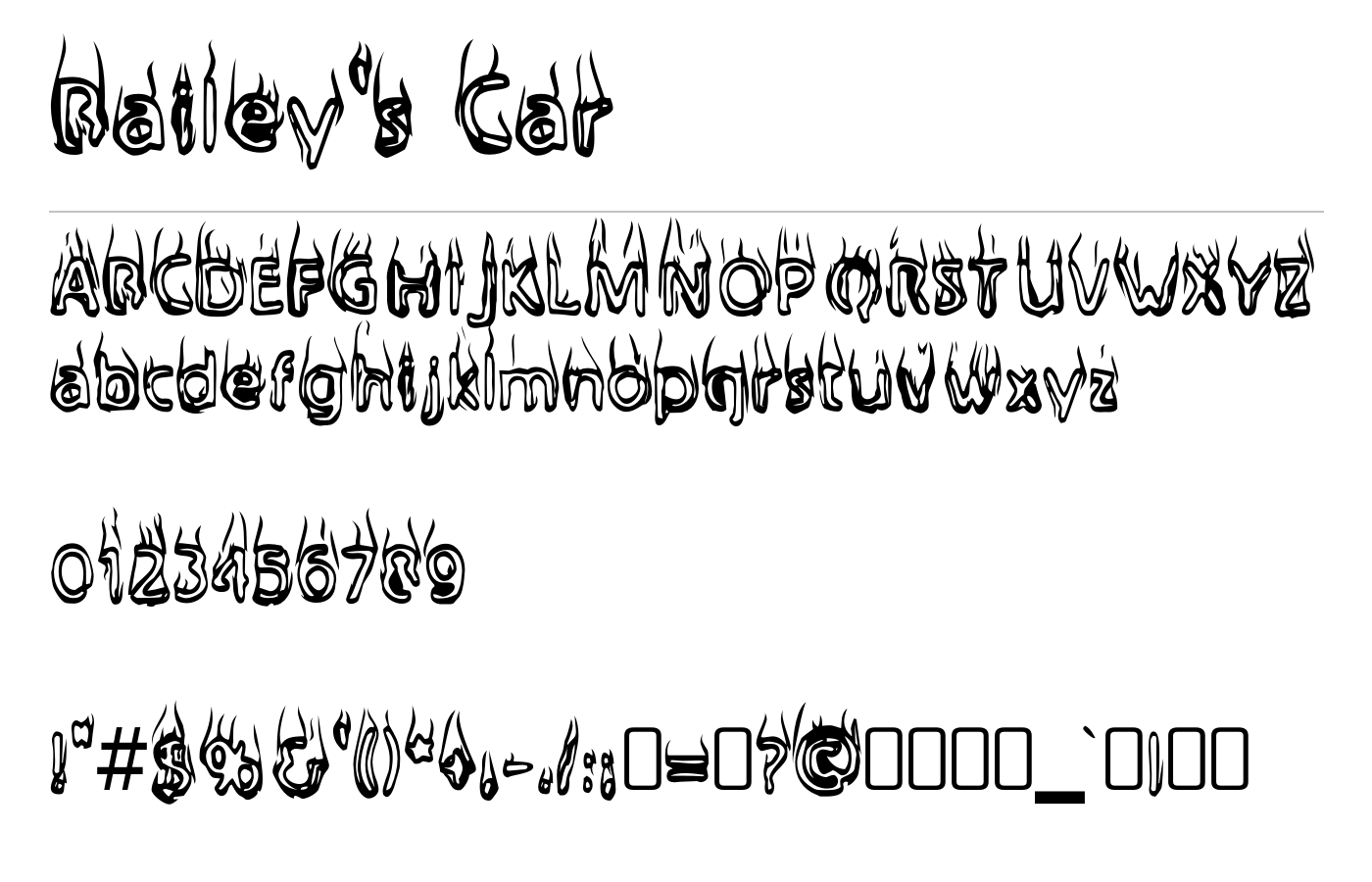
Baileys Car Font is a bold, decorative sans serif typeface characterized by its playful flame-like accents that give each letter a dynamic, edgy appearance. Its quirky, irregular shapes and medium x-height create a lively and attention-grabbing style ideal for creative, fun, or alternative branding and display uses. This font works best in headlines, posters, or logos where a fiery, energetic vibe is desired.
Baileys Car Font
About Baileys Car Font